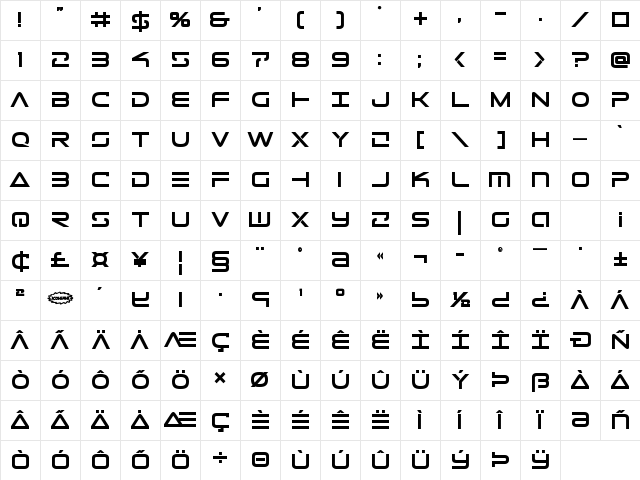
Tele-Marines Bold Bold Free Font
Tele-Marines Bold Bold
Design Context for Tele-Marines Bold
Tele-Marines Bold is a composed and adaptable typeface that performs quietly and consistently across a wide range of design contexts. Its bold stroke weight gives it real presence on the page.
Pro Tip: Use Tele-Marines Bold in both headline and body roles to test its range before committing to a single application.